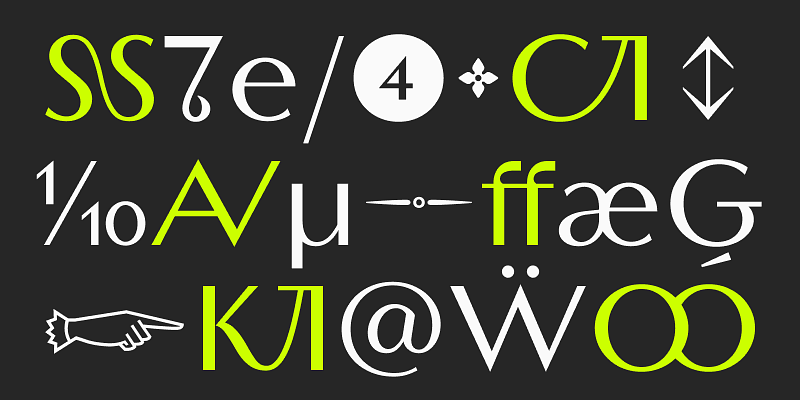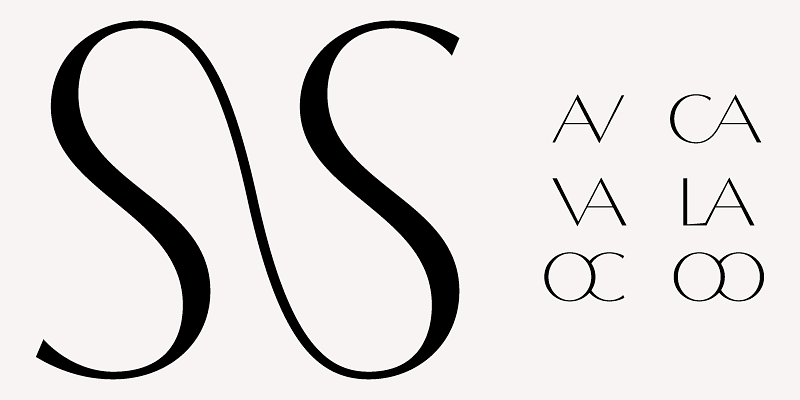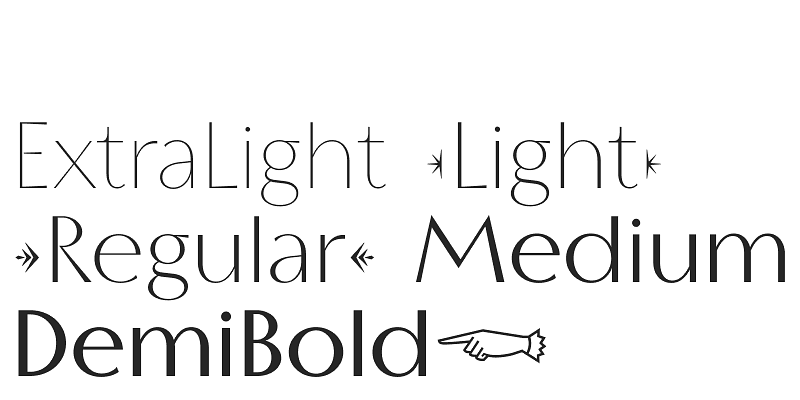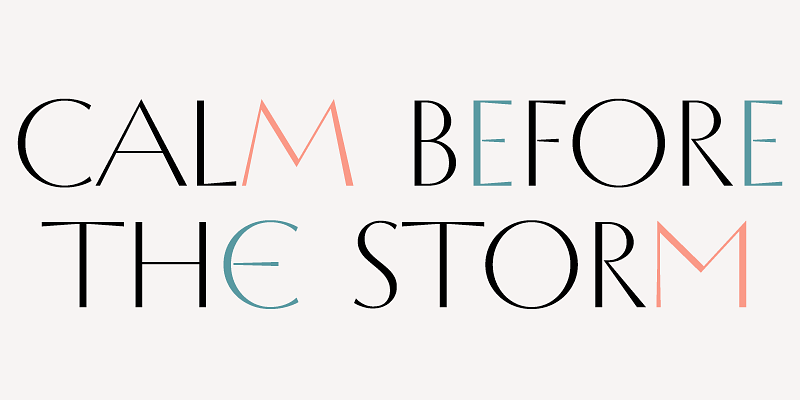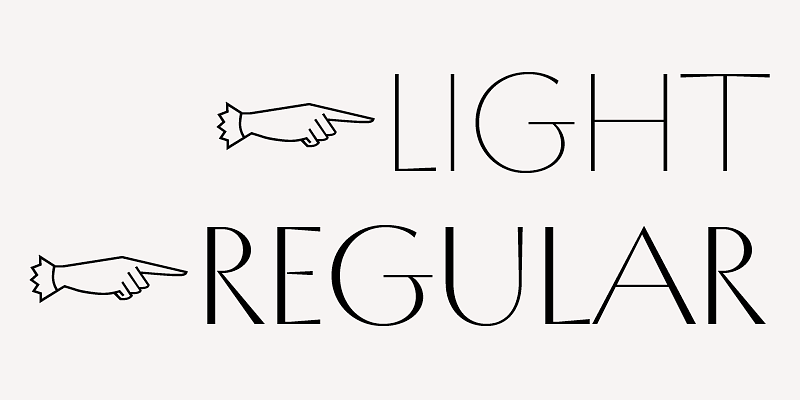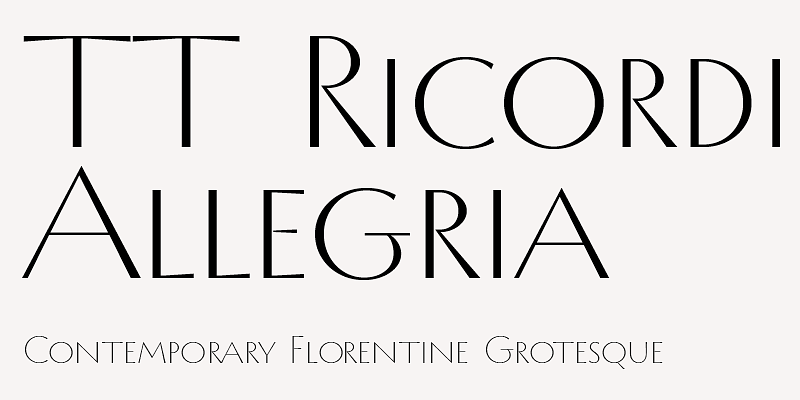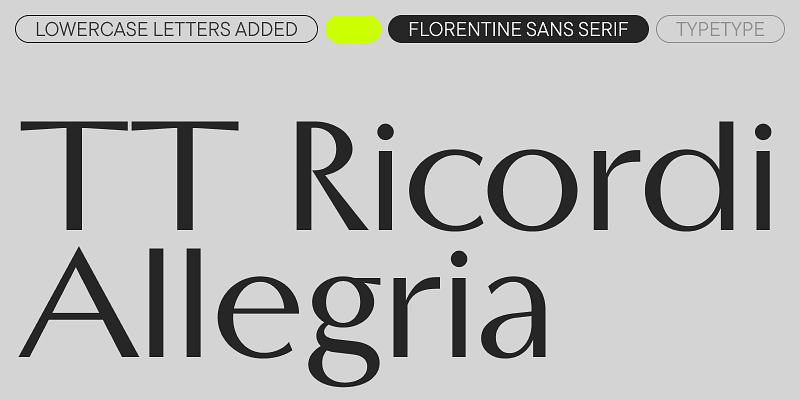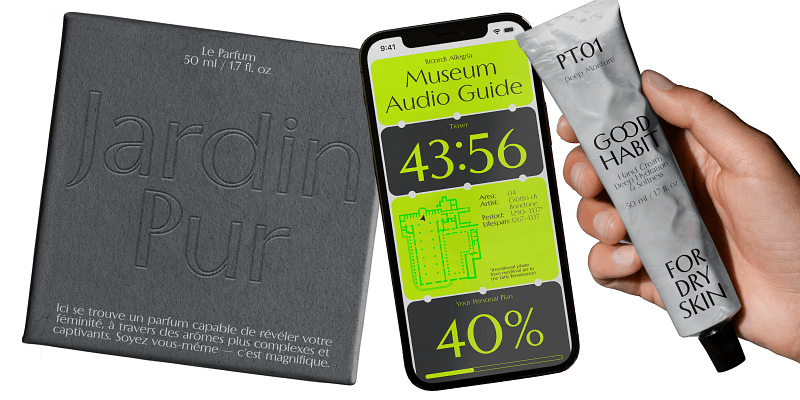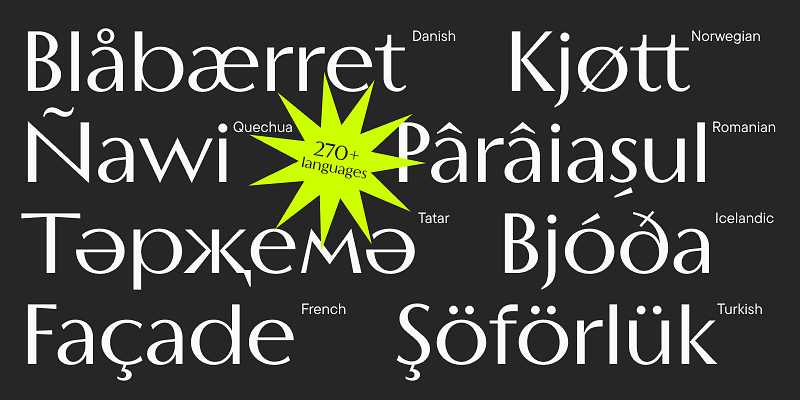
TT Ricordi Allegria is a modern high-contrast sans with an intelligent character. It is an original project by Antonina Zhulkova, developed as part of the Ricordi font line. The main idea behind this unique series is the search for “typographic treasures” in old inscriptions on plaques and stones and bringing the most interesting ones back to life as modern fonts.